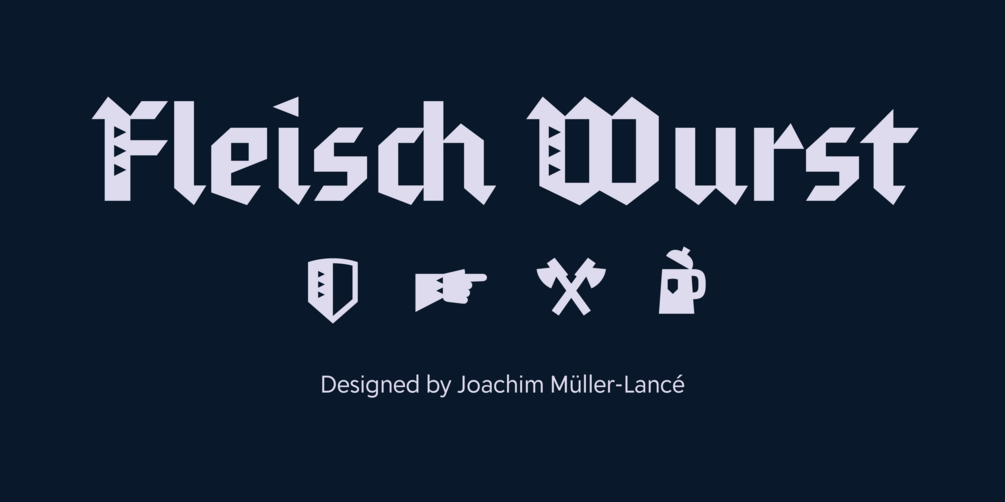
Fleisch Wurst is one style of a pair of blackletter types in the Fleisch family with the same weight and similar proportions. The award-winning designer Joachim Müller-Lancé was inspired by lettering from his childhood to create Fleisch but borrows freely from various sources. Both fonts include oldstyle figures, ornaments, a full set of decorative uppercase letters, lining figures, currencies, and punctuation.
Joachim focused on the modularity of brokenscript as his basic idea for Fleisch. The letters aren’t just made up from lines of varying thickness. For example, the inside or ‘counter’ spaces are rectangular (not hexagonal) producing a different interaction with the outside shapes and the spaces between letters, most visible in the letter “o”.
The suggested use of Fleisch is as a fresh alternative to the more traditional blackletter styles for greeting cards, food packaging, beer labels, and more. •!